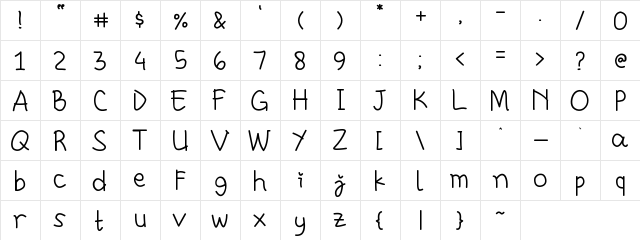
Chasywadan Regular
Design Context for Chasywadan Typeface
Chasywadan is a composed and adaptable typeface that performs quietly and consistently across a wide range of design contexts.